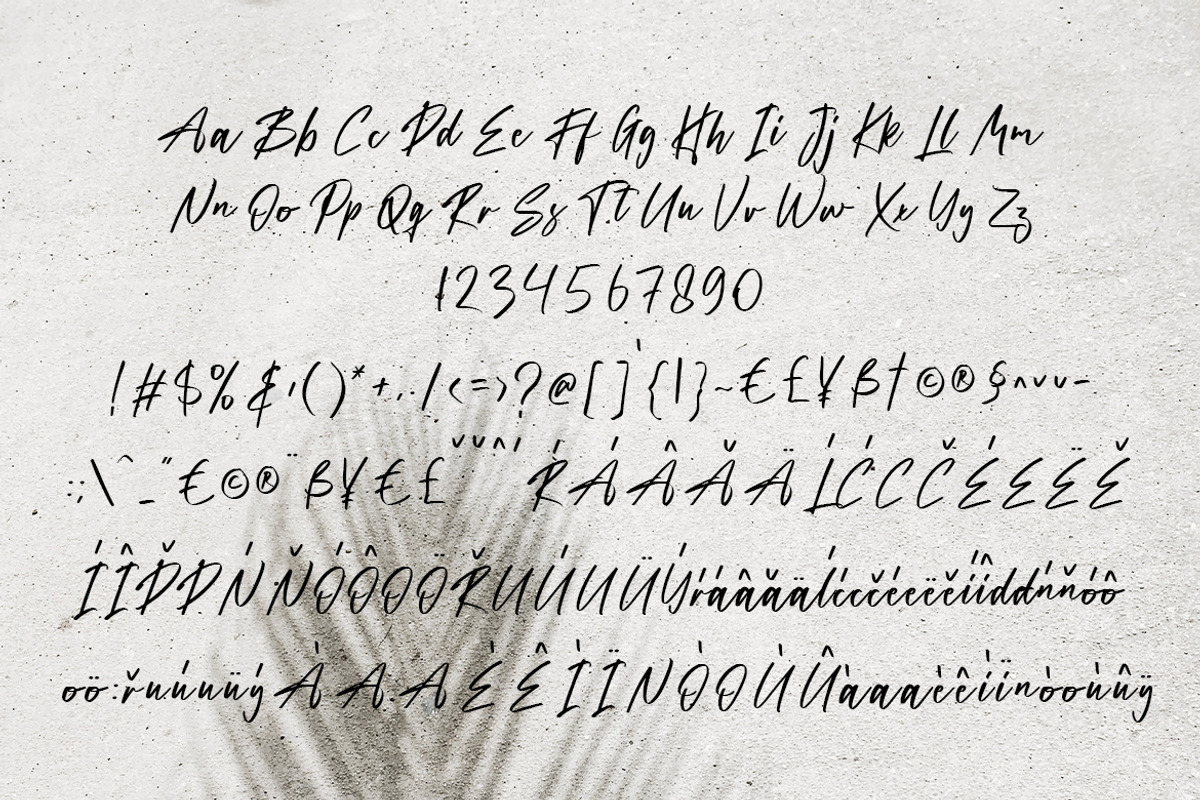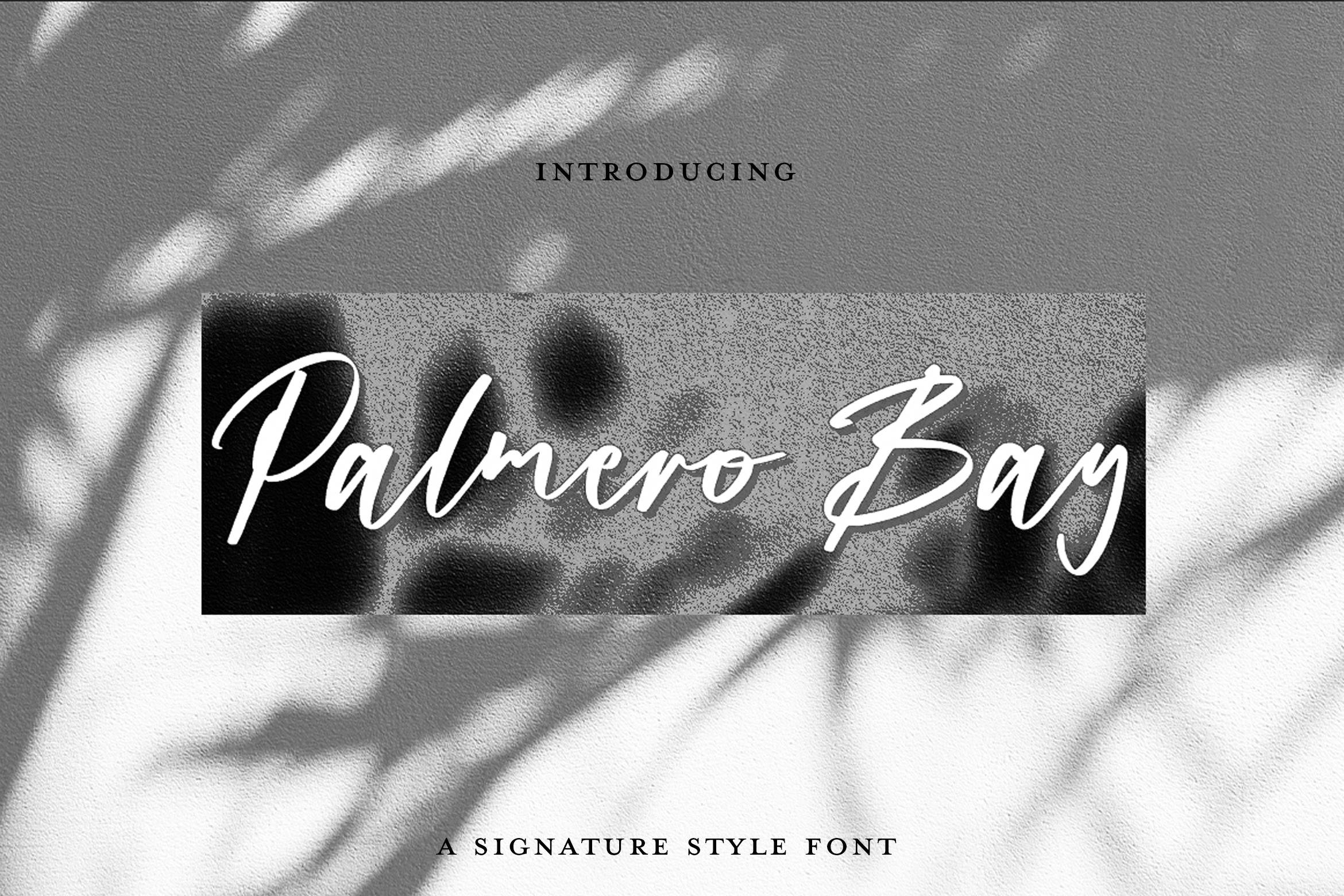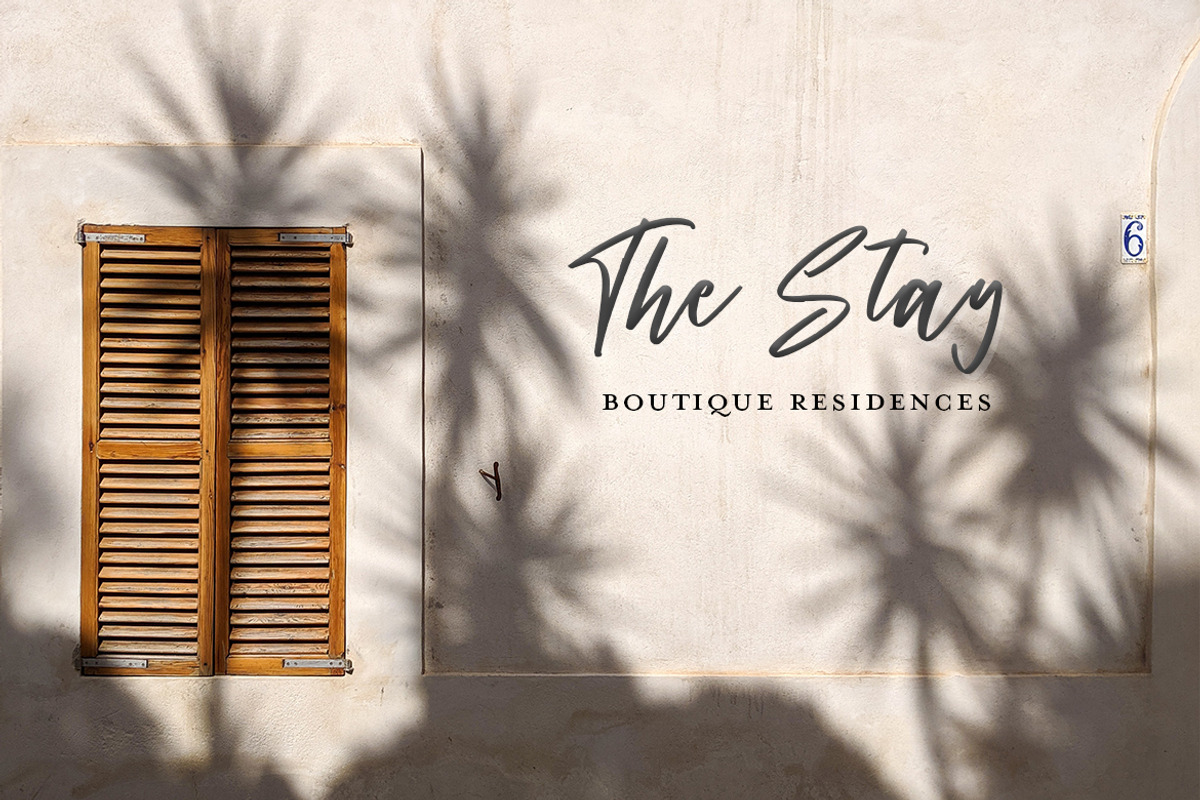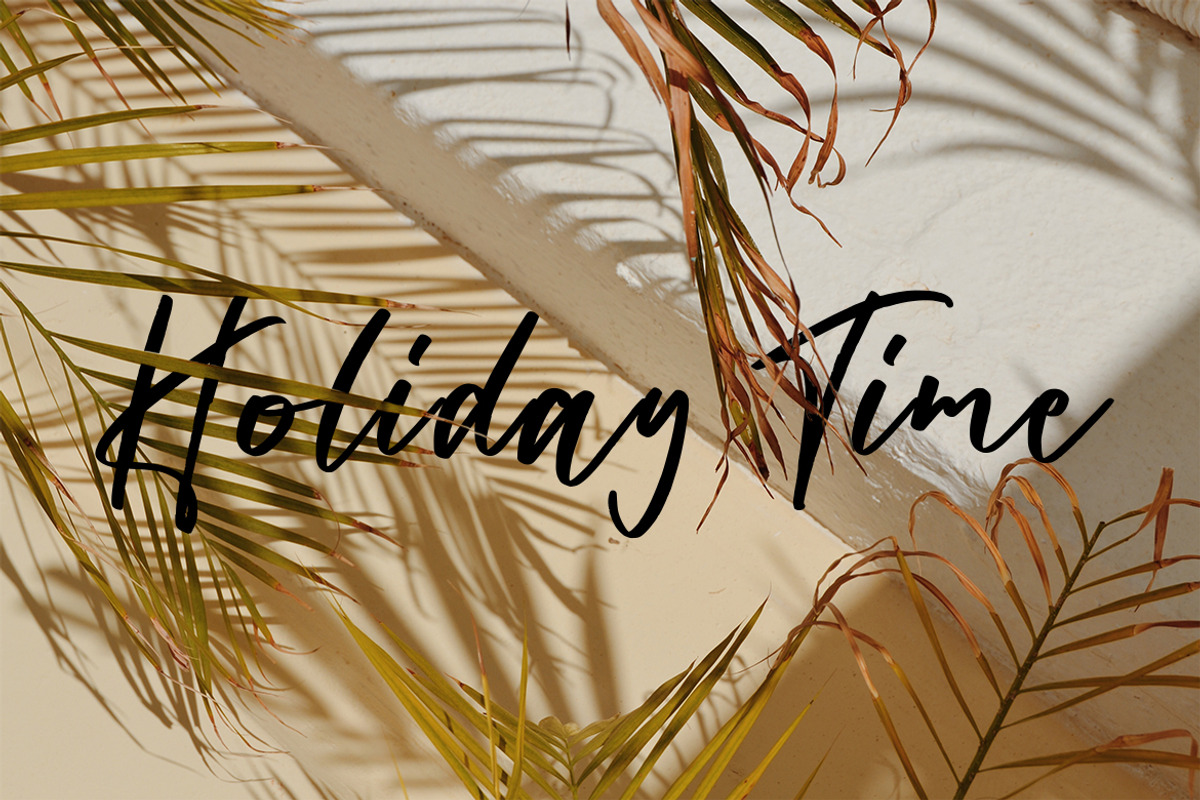
Palmero Bay Font
This classic and modern font is ideal for use in your digital journalling and planning or even for sleek and clean business designs.